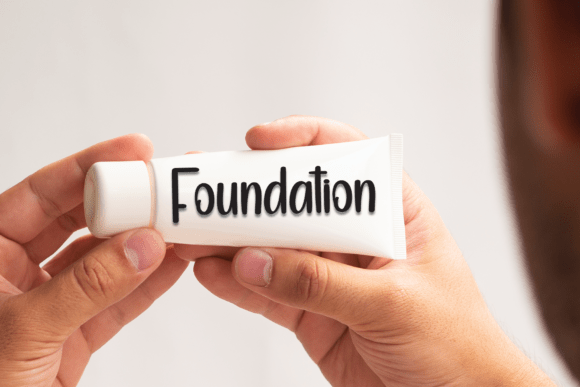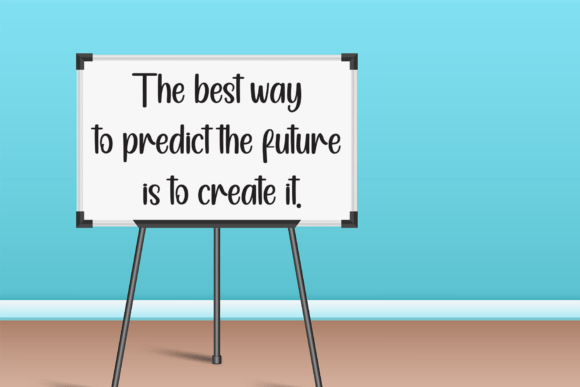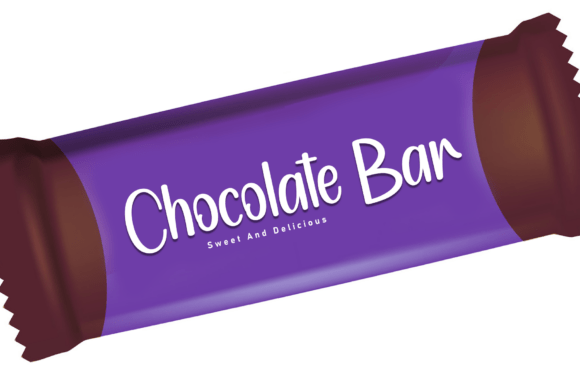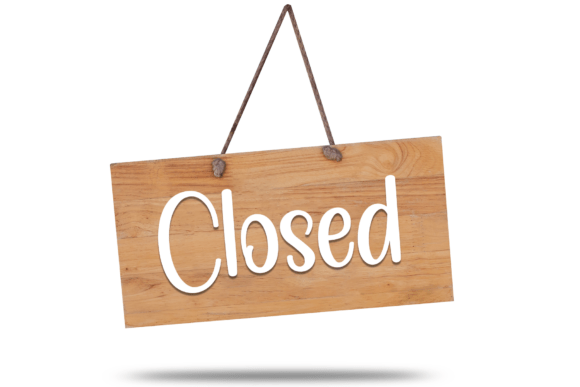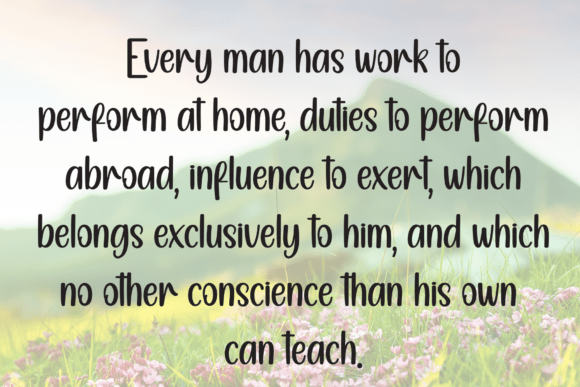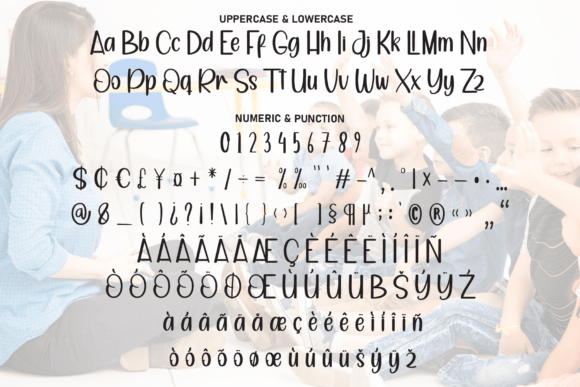
Bringing Whimsy to Your Designs: Introducing Baby School Font
Have you ever been brainstorming a design project, and suddenly, a spark of creativity hits you? Maybe it’s the image of a playful chalkboard, a colorful children’s book, or a sweet nursery sign. Whatever it is, it’s that magical moment when you know exactly what you want to create. For designers looking to bring a touch of whimsy and warmth to their projects, we’re excited to introduce the perfect solution: Baby School Font.
This modern handwritten font is specifically designed to evoke a sense of playfulness and nurturing, making it perfect for preschool branding, children’s books, classroom posters, and anything else that requires a soft and approachable tone. As a designer, you’ll love the versatility and ease of use that Baby School Font offers, allowing you to create beautiful and engaging designs with just a few clicks. Whether you’re working on a project for a young client or simply want to add a touch of personality to your designs, Baby School Font is an invaluable addition to your toolkit.
Baby School Font Key Features
- Unique Characteristics: Designed specifically for educational materials, Baby School Font is a child-friendly, cursive script font that promotes learning and engagement in young children.
- Style Variations: Includes bold, italic, and regular styles for added versatility
Baby School Font Review
I recently had the chance to work with the “Baby School Font” and I must say it’s a unique and playful font. ✨ One thing I like about it is the cursive script that resembles handwriting, making it perfect for kids’ educational materials or nursery decor. The font is also very easy to read, even at smaller font sizes.
Another feature I appreciate is the availability of different font weights and styles, allowing for a range of creative possibilities. ✨ Additionally, the font is fully editable, making it easy to customize and adjust to specific design needs.
While the “Baby School Font” has its charm, there are a few limitations I’d like to point out: ⚠️ The font is not ideal for body text, as it can be quite busy and overwhelming. It’s better suited for titles, headings, or decorative elements. Additionally, some characters may not be as polished as others, which can be distracting in certain designs.
Overall, I think the “Baby School Font” is a fun and creative option for designers looking to add a playful touch to their projects. However, it’s not a go-to font for everyday use. ✨
- Unique cursive script
- Easy to read, even at smaller font sizes
- Multiple font weights and styles available
- Fully editable
Practical Application Guide for Baby School Font
Tips for Getting the Most Out of Baby School Font
1. Use Baby School Font for titles and headings to add a playful touch to your designs.
2. Pair Baby School Font with other fonts to create a unique and eye-catching combination.
3. Experiment with different font sizes and colors to achieve the desired effect.
1. Birthday party invitations and decorations.
2. Children’s book covers and illustrations.
3. Educational materials and worksheets.